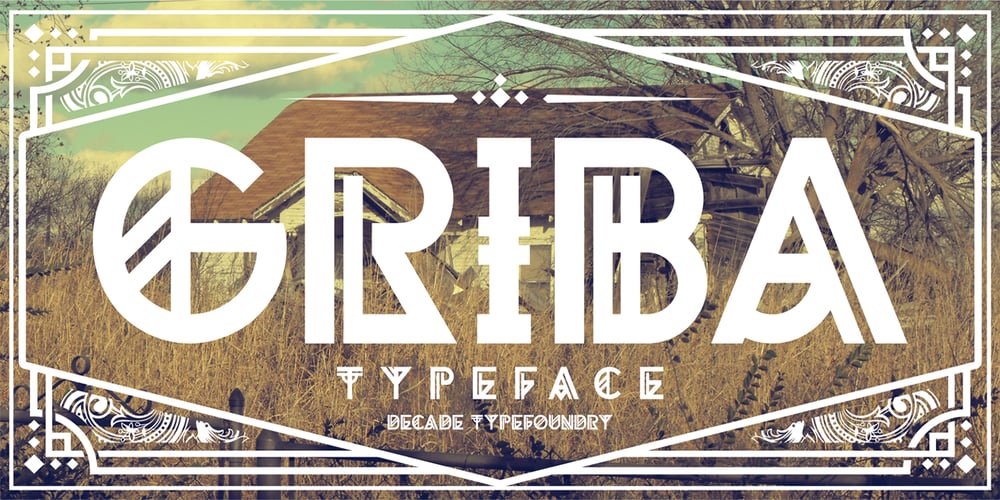
Griba
Griba font
Griba Font Family was designed by Gilang Purnama Jaya and published by Decade Typefoundry. Griba contains 1 styles and family package options. GRIBA Typeface is an experimental display typeface, based on every shape of each characters and transformed into double lines. This font is perfect for poster, titles, and t-shirt designs.